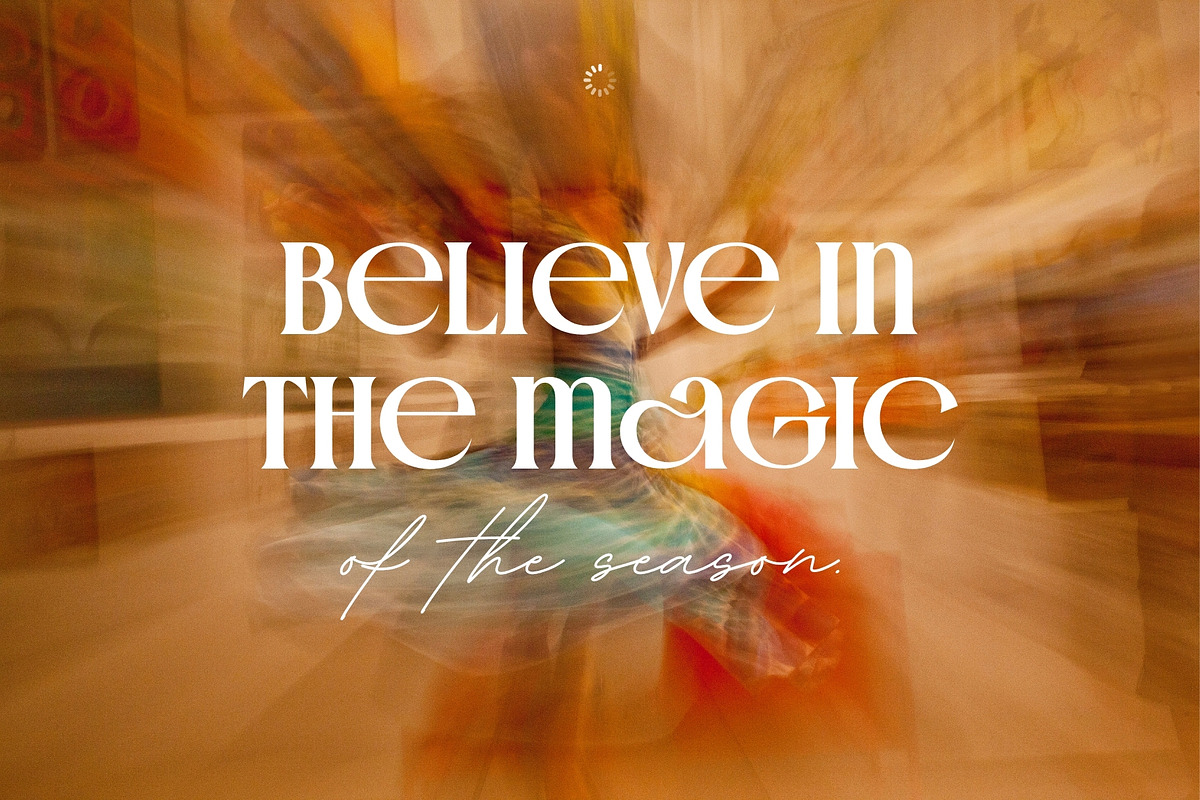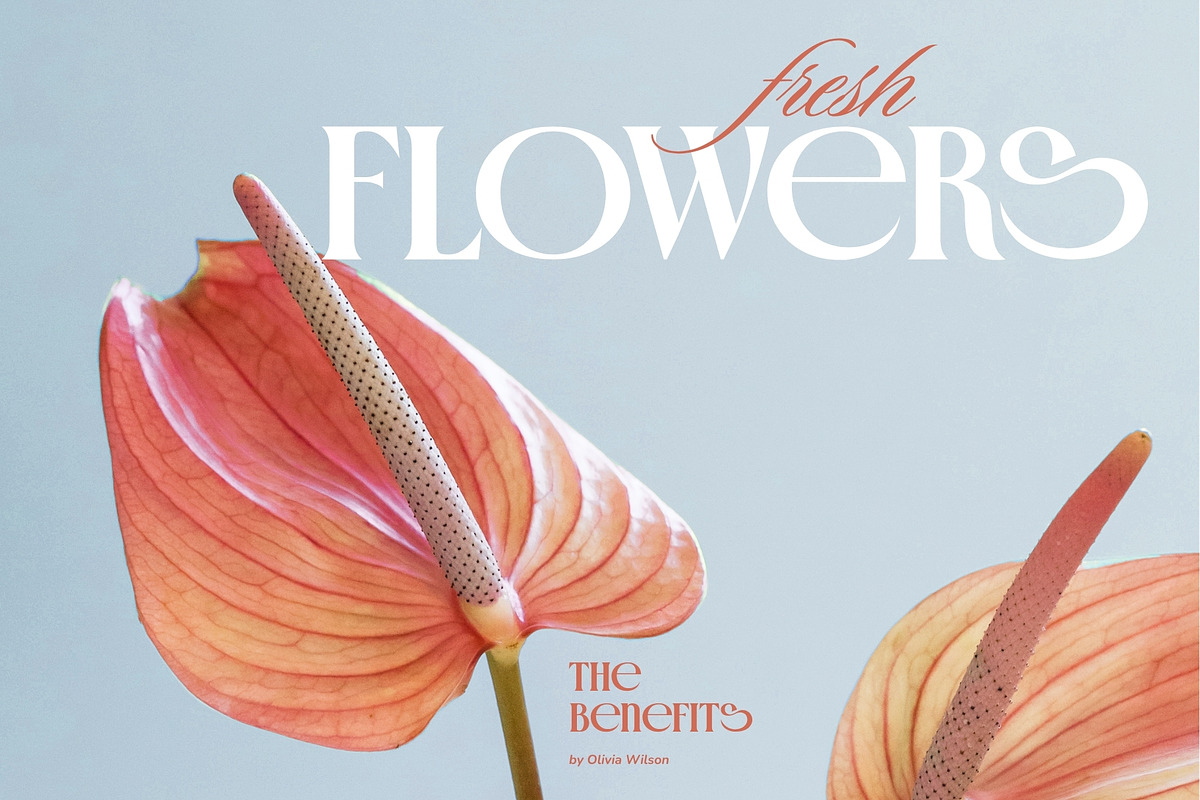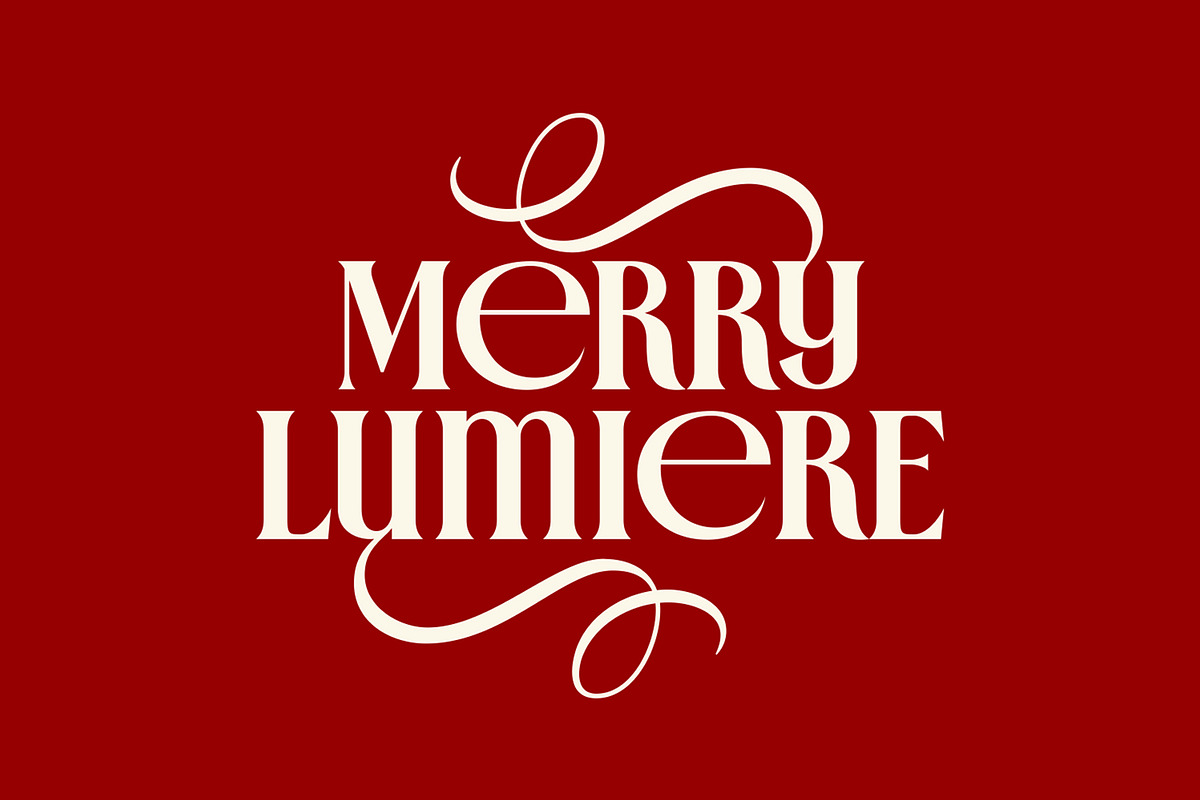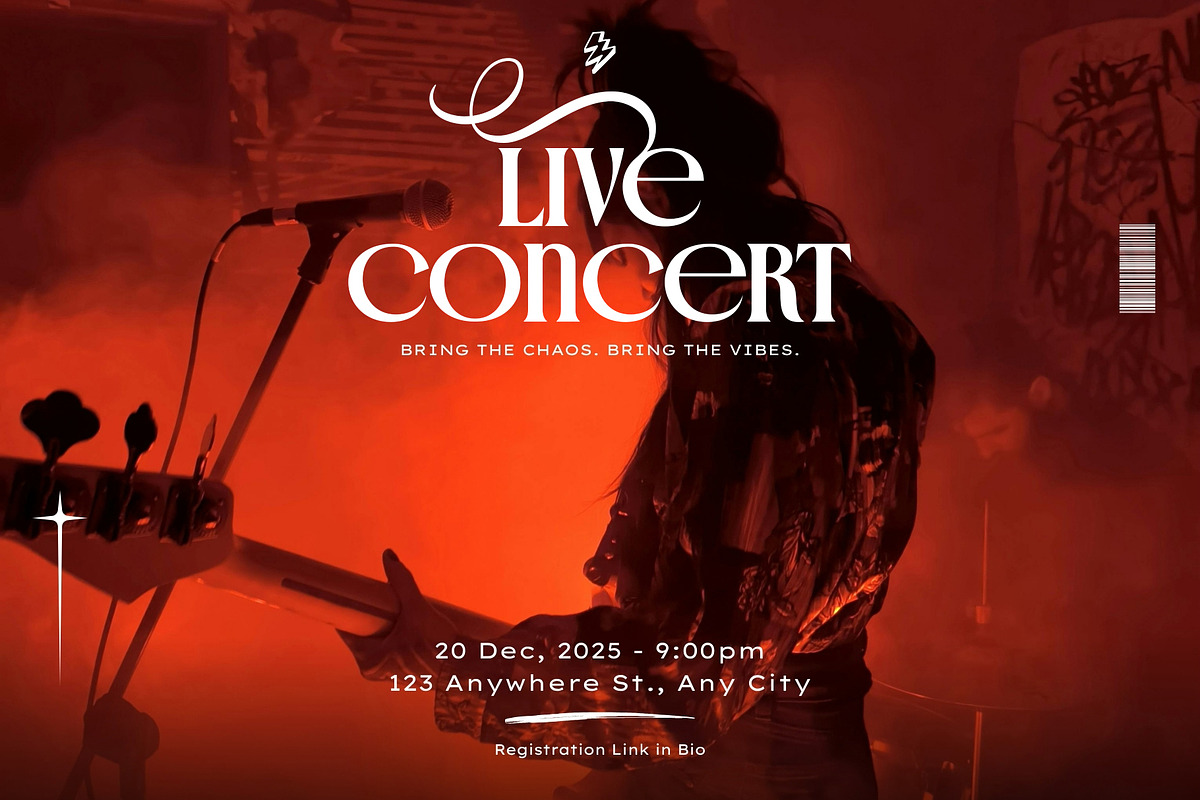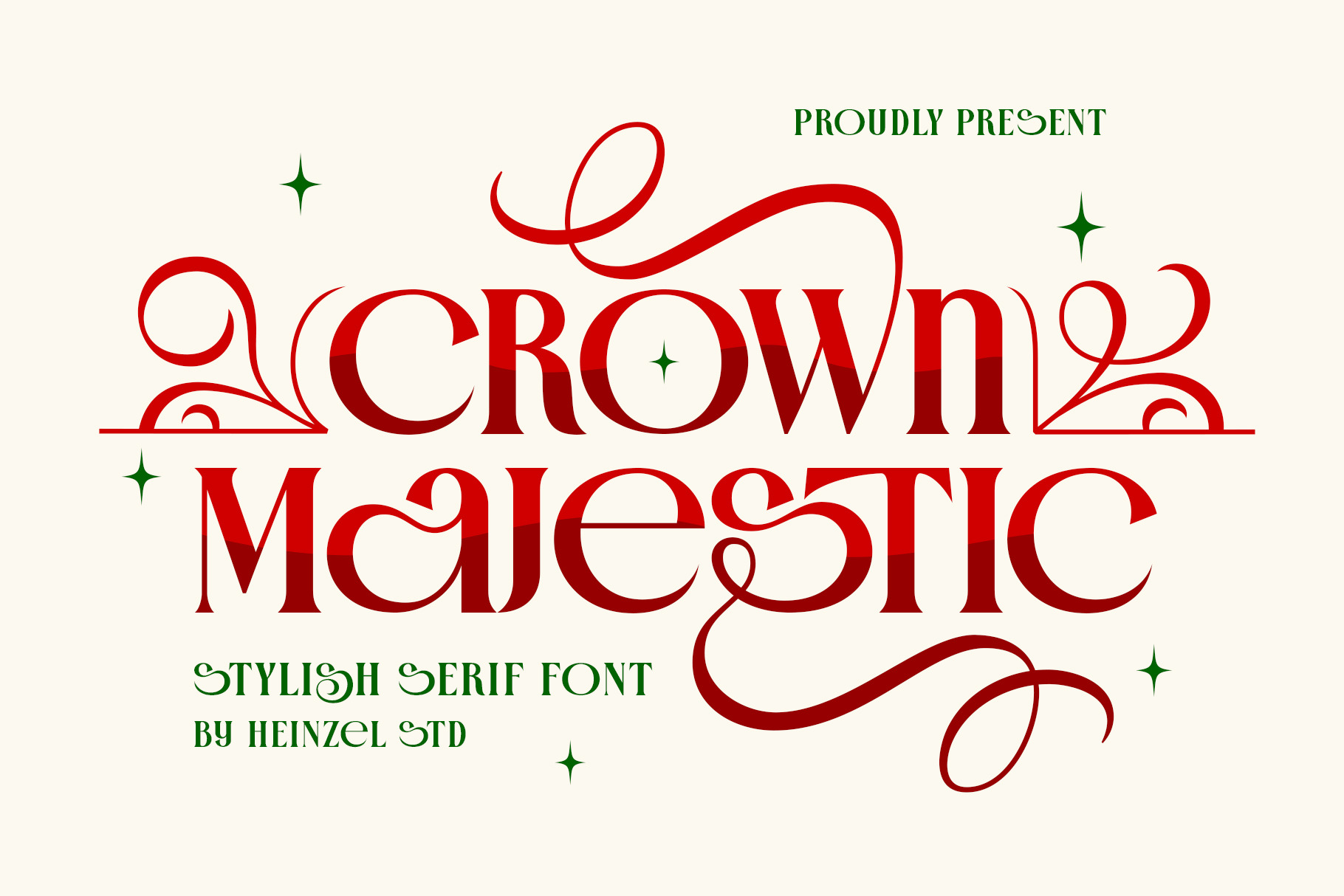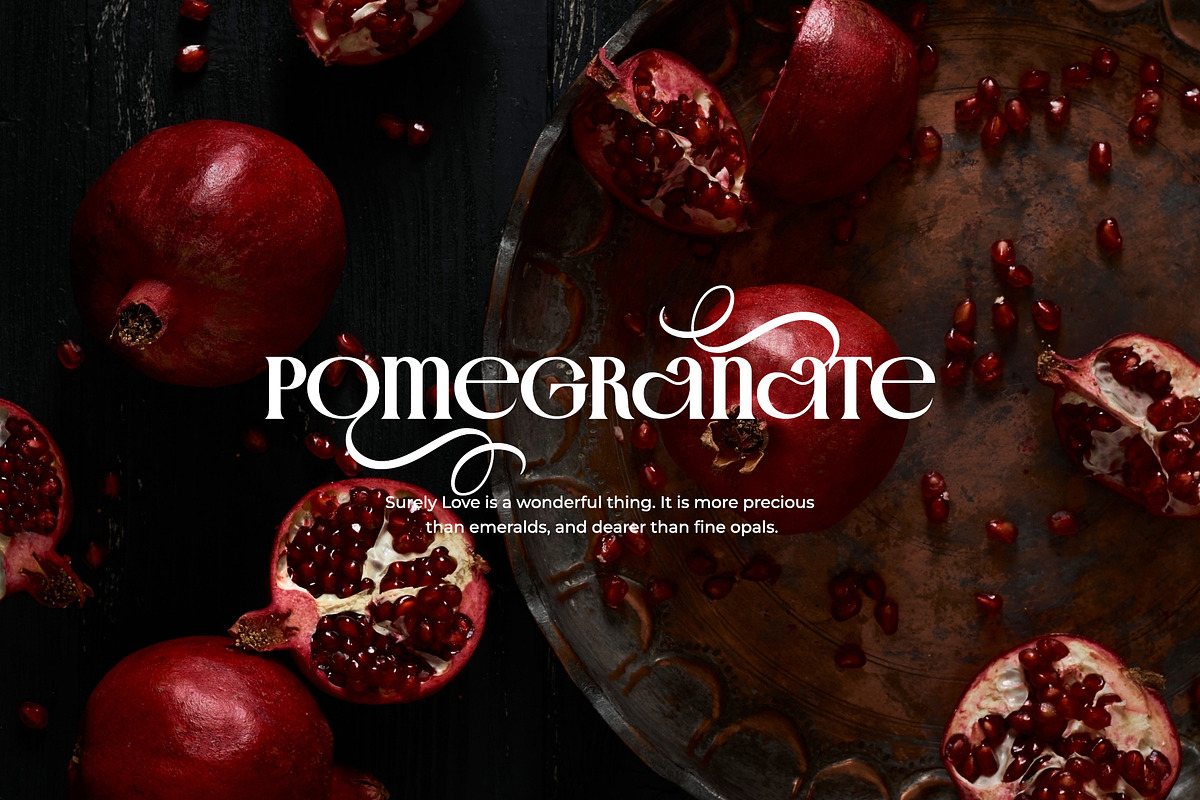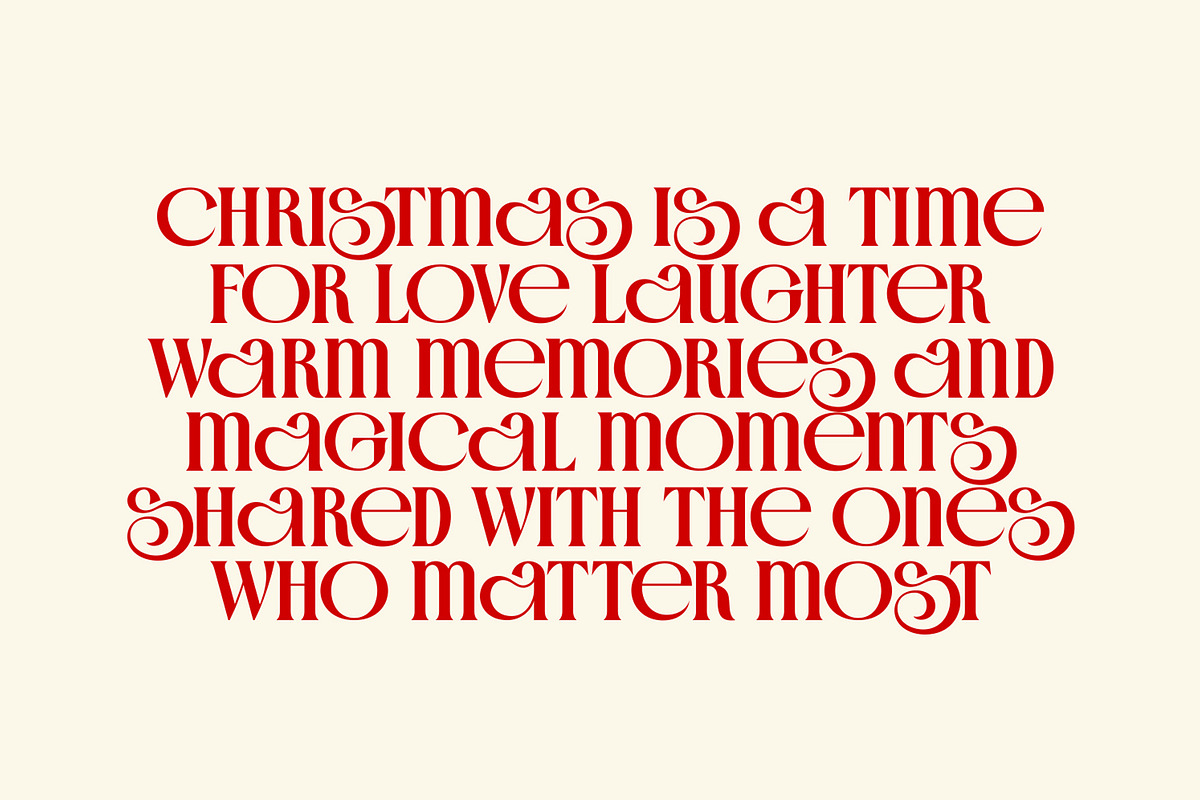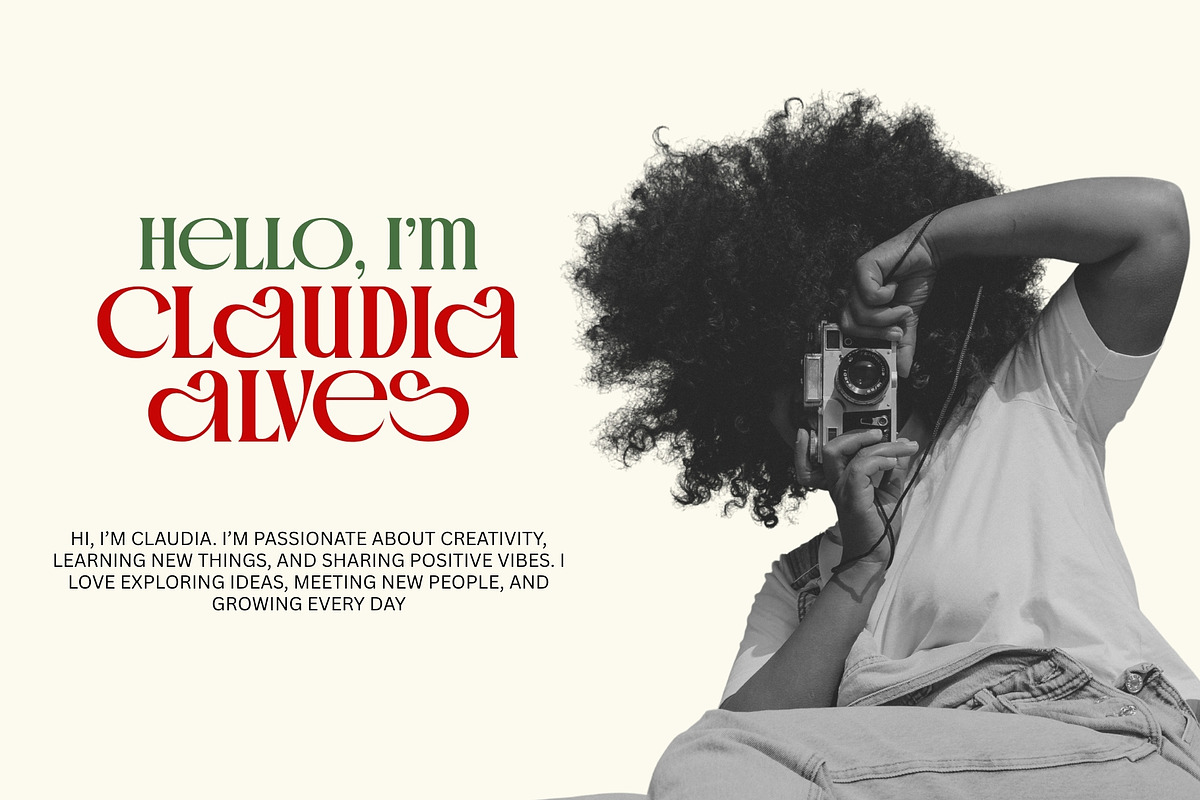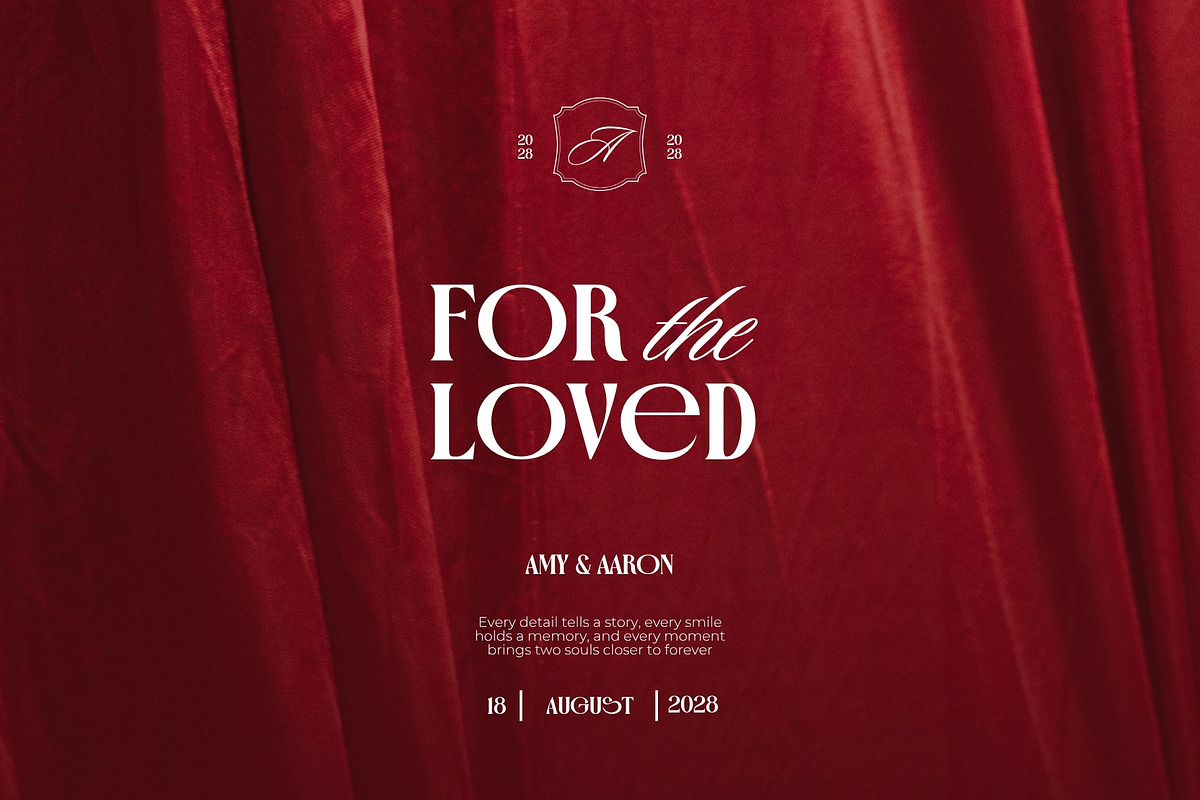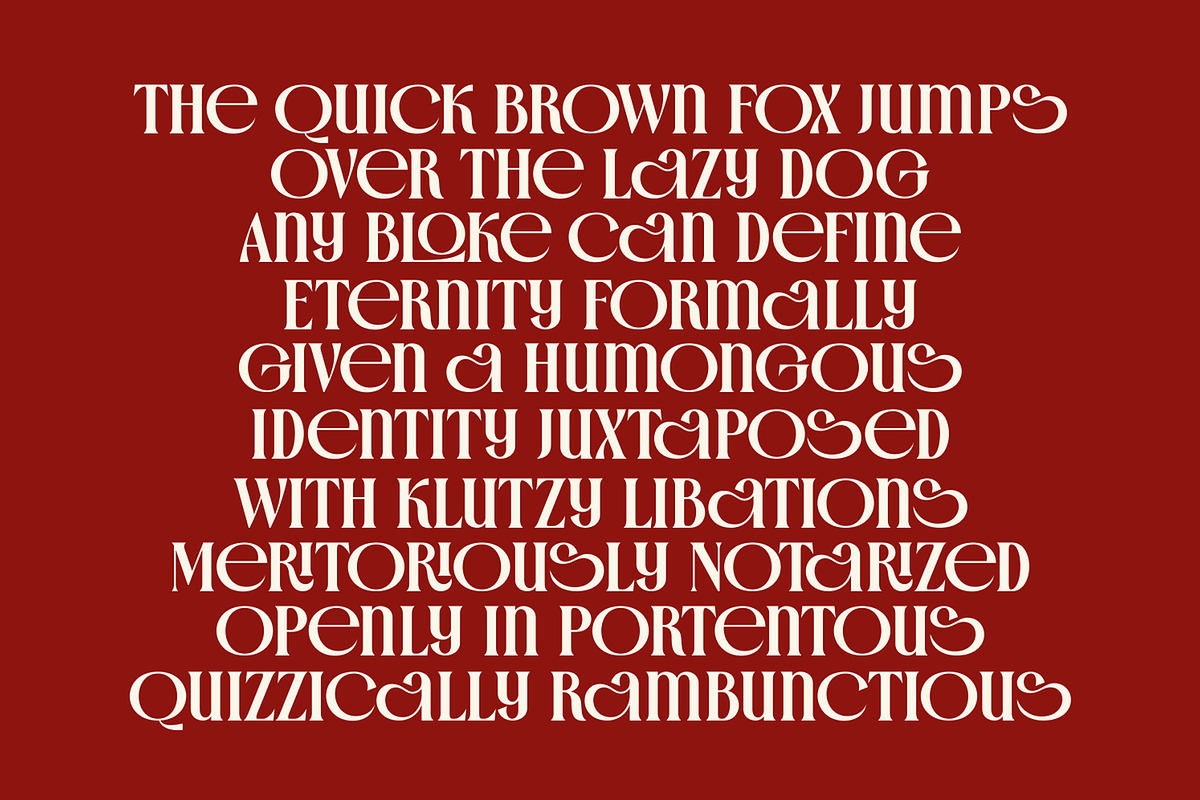
Crown Majestic Elegant Serif Font
Crown Majestic – Elegant Stylish Serif Font | Luxury Display Typeface
Crown Majestic is an elegant and stylish serif font designed to bring a luxurious, sophisticated, and regal character to your creative projects. Featuring high-contrast serif forms, graceful curves, decorative swashes, and refined letter details, Crown Majestic creates a striking premium look while maintaining excellent visual elegance.
Perfect for luxury branding, fashion logos, wedding invitations, beauty products, editorial designs, packaging, magazine covers, social media graphics, posters, headlines, and sophisticated typography projects.
Its distinctive combination of classic serif structure and expressive decorative elements makes Crown Majestic especially suitable for designs that need a royal, glamorous, feminine, and high-end aesthetic. The dramatic swashes can also add an elegant signature-like finish to selected lettering and display compositions.
Whether you're creating a luxury brand identity, elegant wedding stationery, premium packaging, or a sophisticated editorial design, Crown Majestic Font adds an instantly polished and memorable typographic presence.